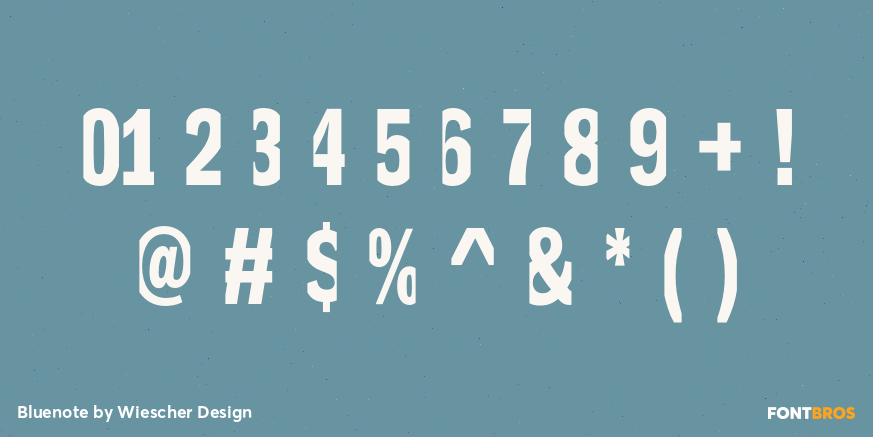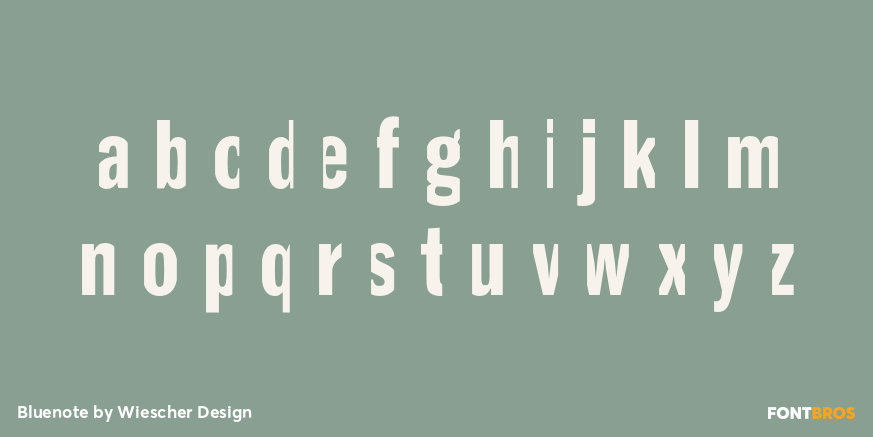
Bluenote
Font Family by Wiescher Design
Bluenote is a font based on Franklin Gothic condensed. In the 60s and 70s the record label Blue Note published all those classic jazz records of my youth. Someone at their arts department cut letters to ribbons and designed wonderful record covers with those fragmented glyphs. I recently had a look at my music collection and rediscovered these letters.
Being a hard-working type designer I couldn't resist the challenge, here is the result from your dilligent designer Gert Wiescher